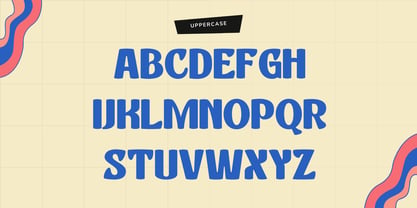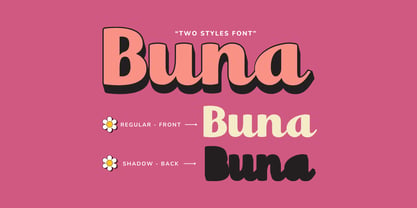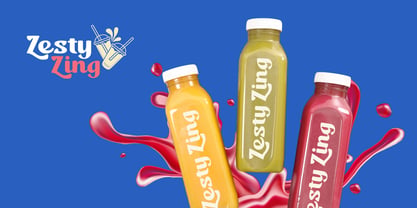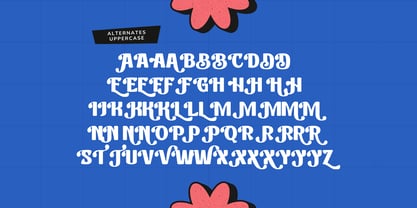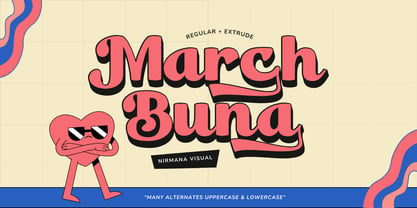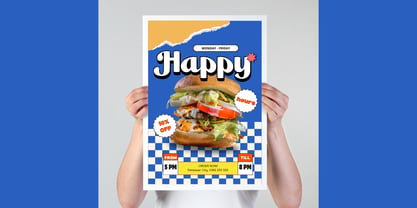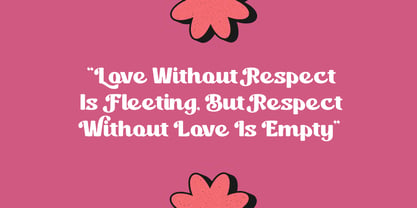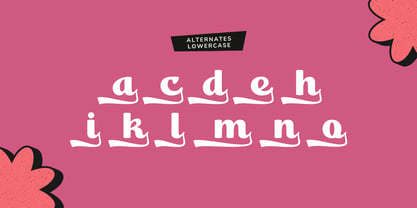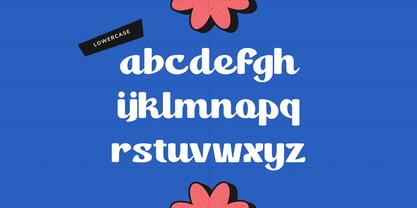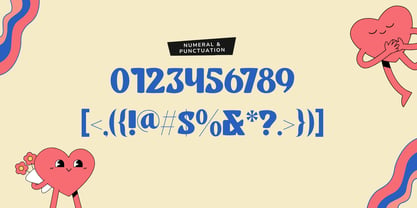
Marchbuna Retro
por Nirmana Visual
A família de fontes Marchbuna Retro foi desenhada por Sigit Dwipa e publicada pela Nirmana Visual. Marchbuna Retro contém 2 estilos e opções de pacote familiar. Saiba mais sobre esta família
Marchbuna is a bold retro font that brings back the charm of vintage design with a modern twist. Perfectly crafted for retro themes, posters, and branding, Marchbuna delivers a nostalgic vibe with many alternates uppercase and lowercase, make a strong curves and smooth lines. The bonus extrude font adds depth and style, making your text pop with 3D flair. Whether for headlines or creative projects, Marchbuna is your go-to choice for classic retro aesthetics.
Designers: Sigit Dwipa
Fundição: Nirmana Visual